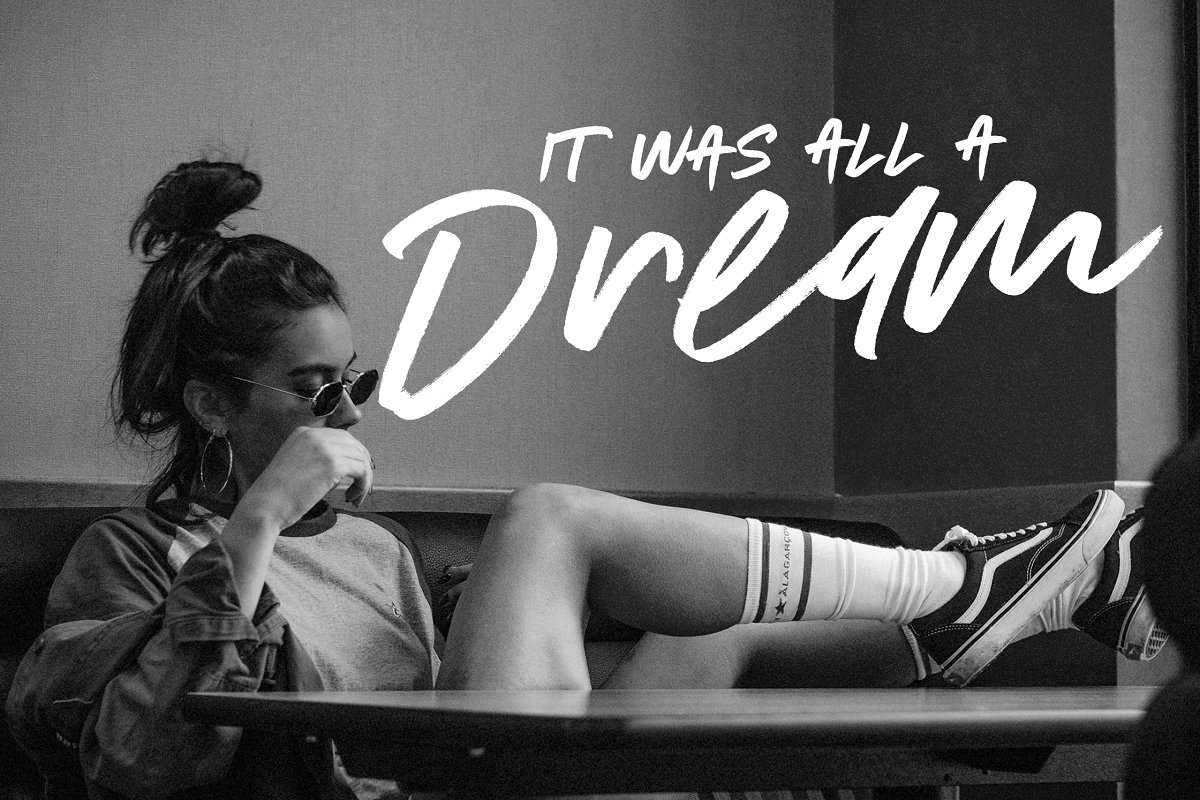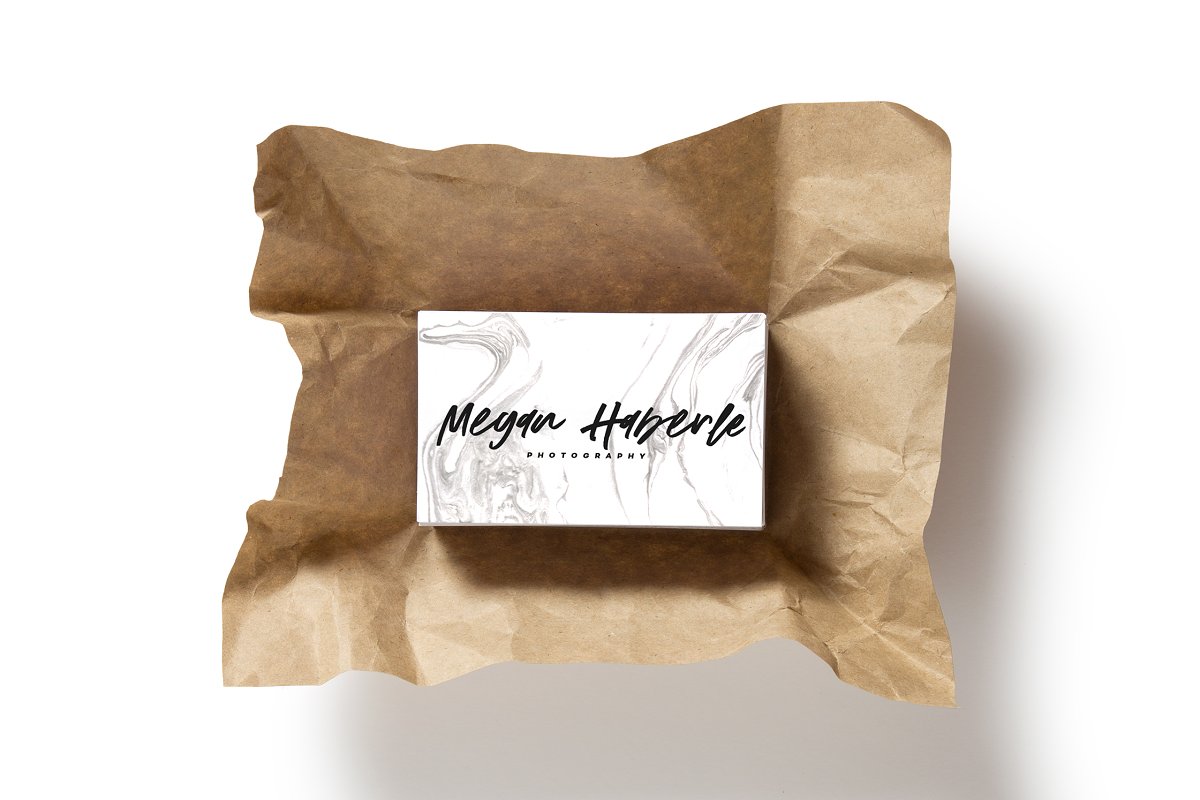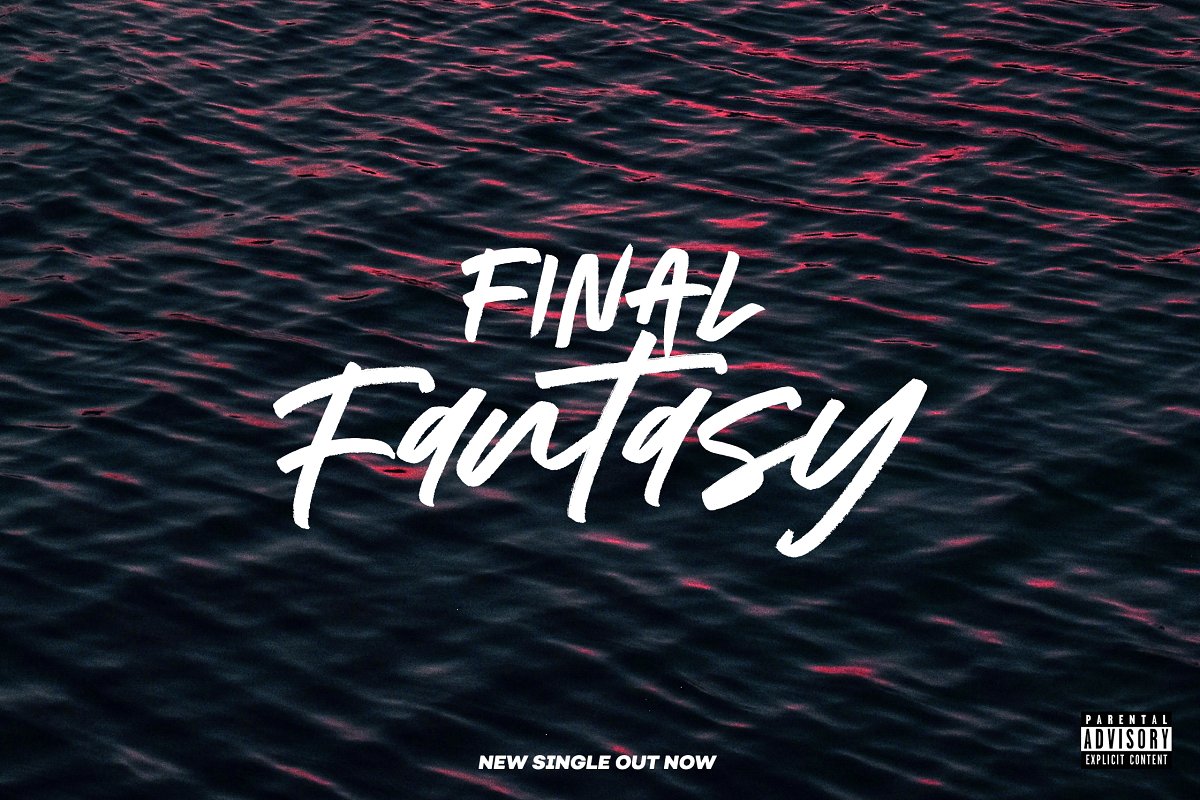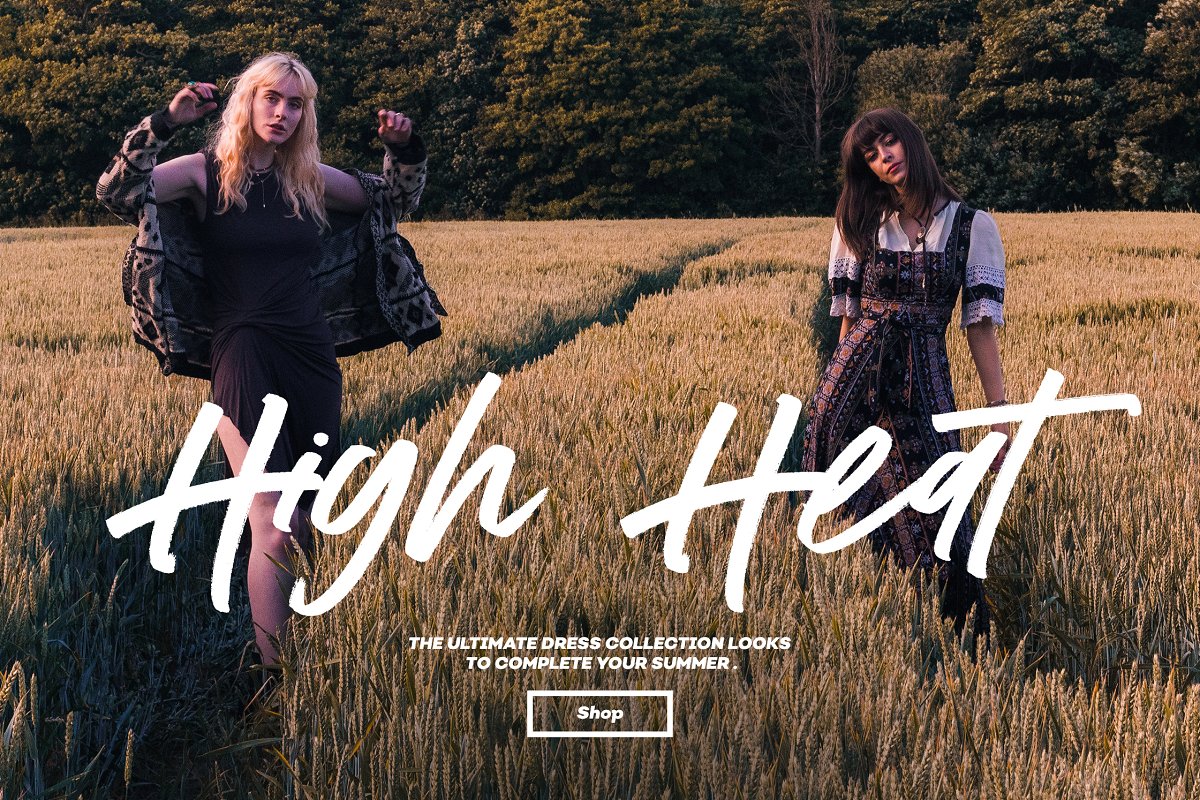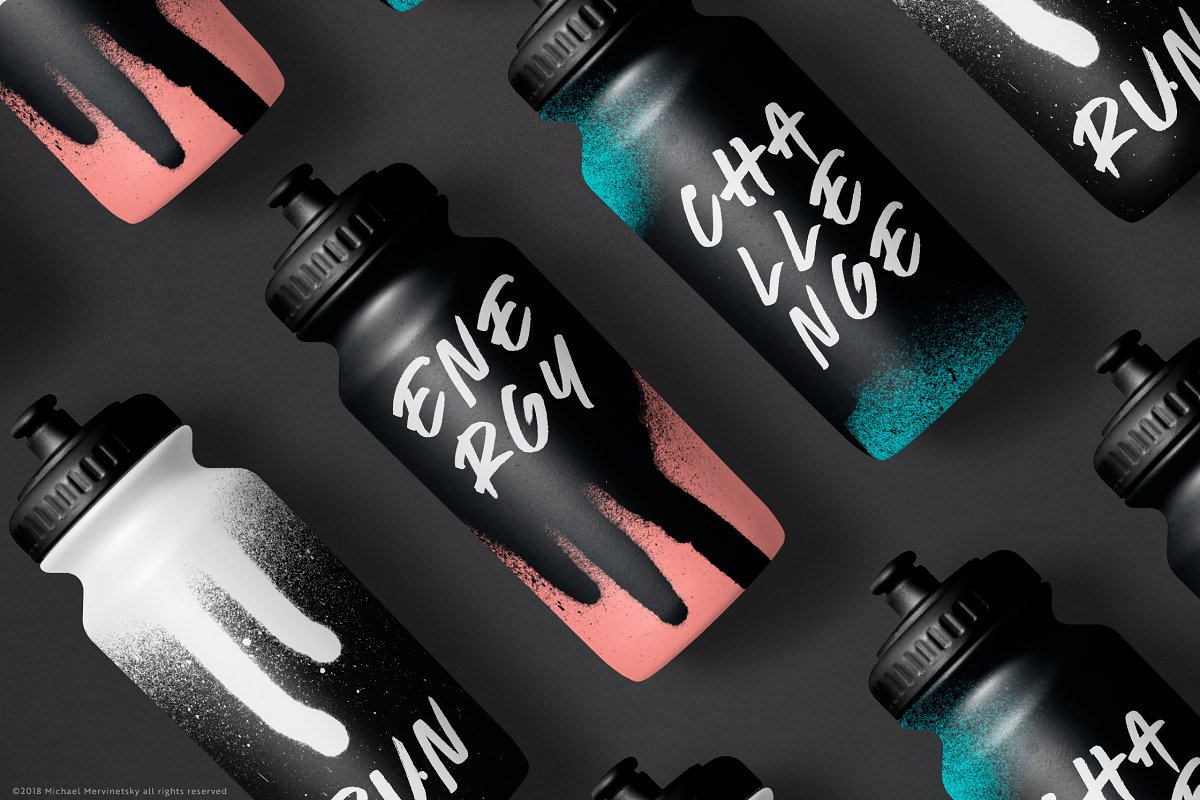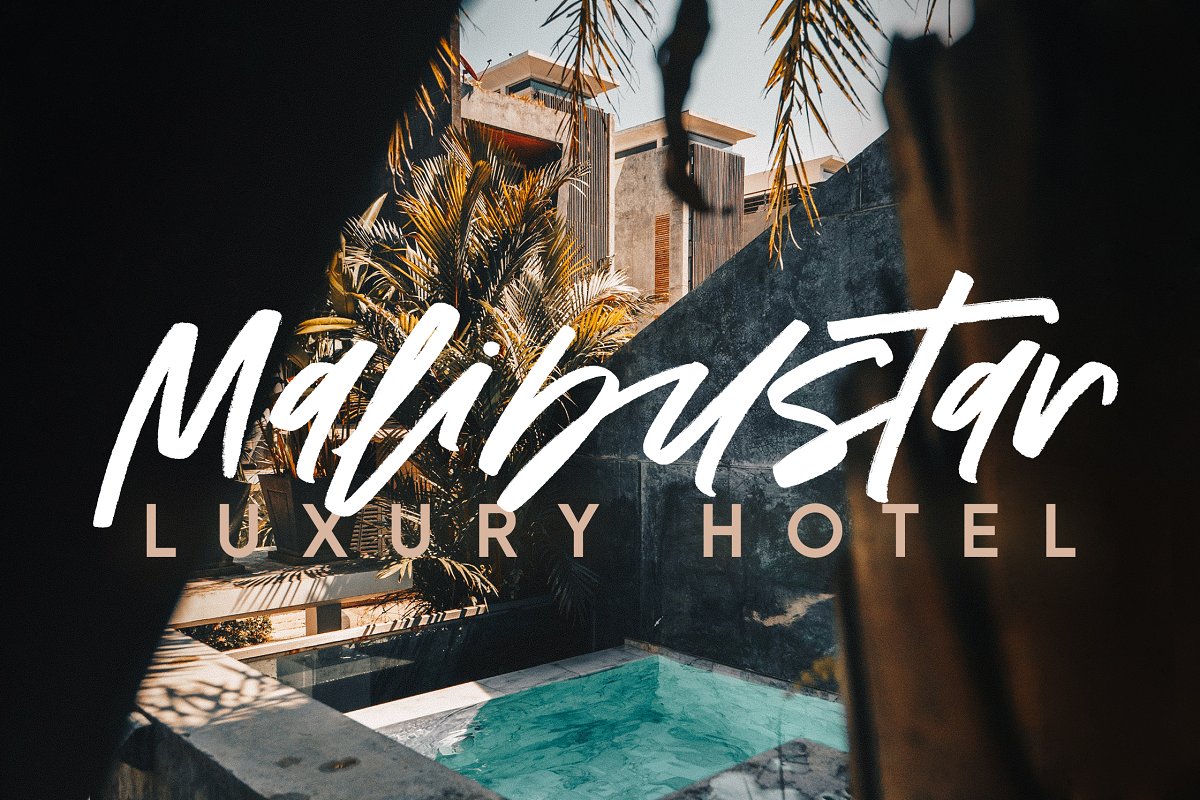
About the Addictive Duo Font
Addictive font duo is a sophisticated & contemporary, hand-made script font, With personal charms and character, allow you to create flowing hand-lettering, Addictive fonts are designed to be a powerful combination, this font will perfect for many different project, Designed to feel comfortable with variety projects including advertising, campaigns, poster design, wedding, branding, logo, fashion, magazines, social media
Here is what you get in the Addictive package:1, Addictive • A hand-made High quality script font containing upper & lowercase characters, numerals and a large range of punctuation + OpenType features (Ligatures&Alternates), 2, Addictive Caps • A bold hand-made brush font containing upper & lowercase characters, numerals and a large range of punctuation